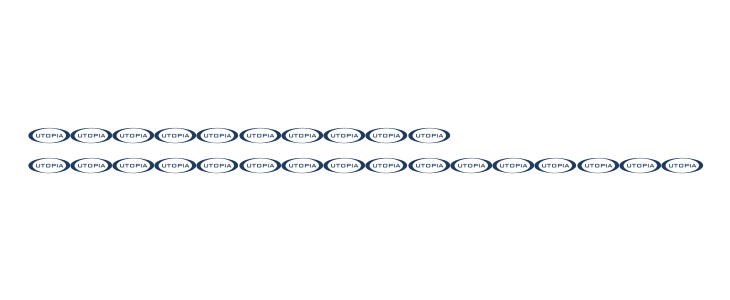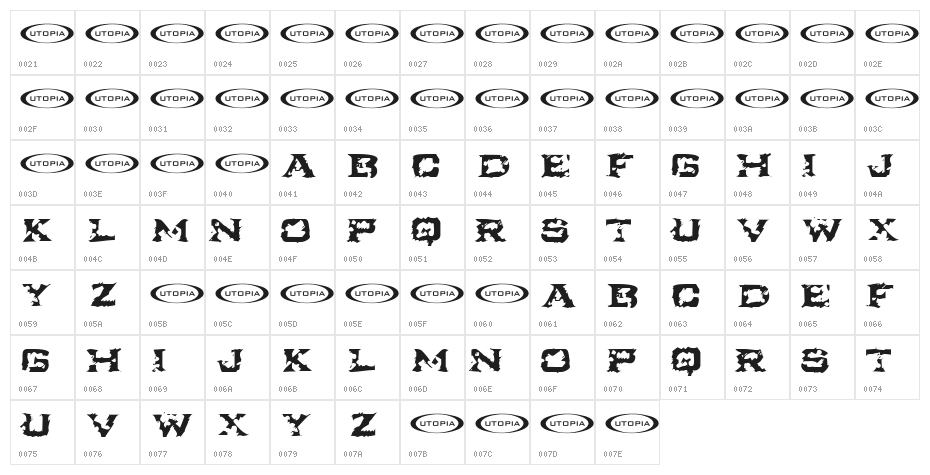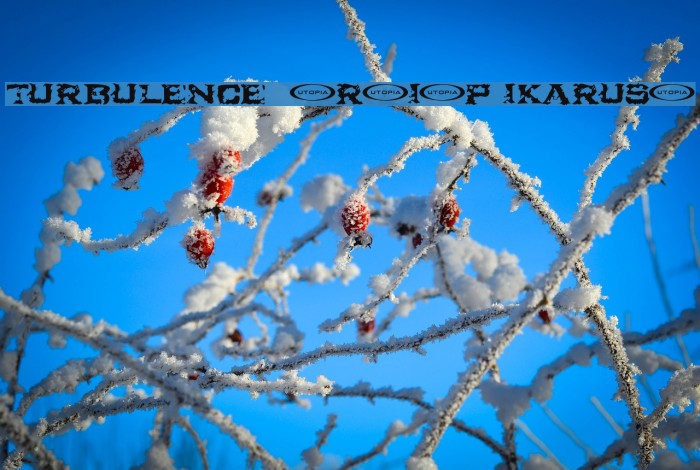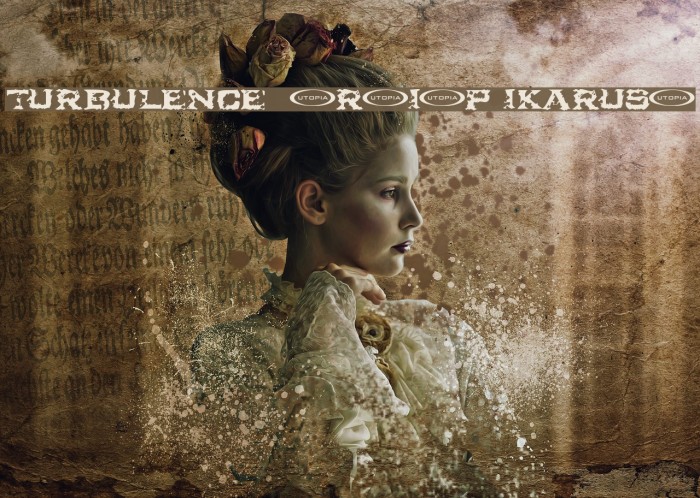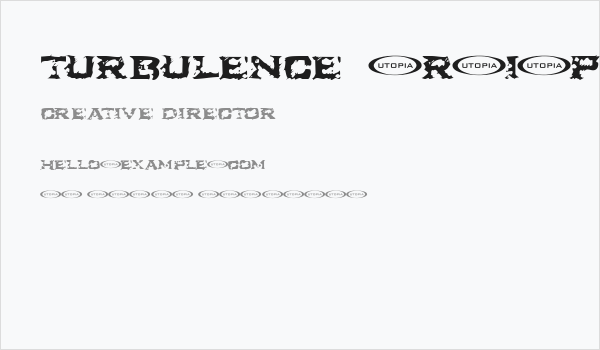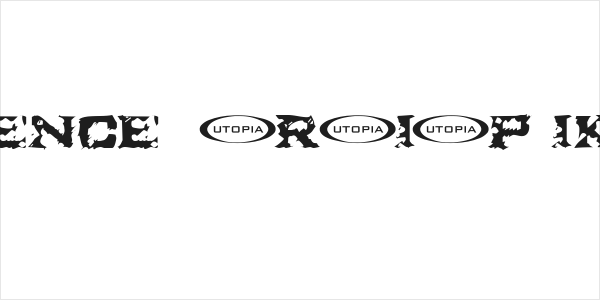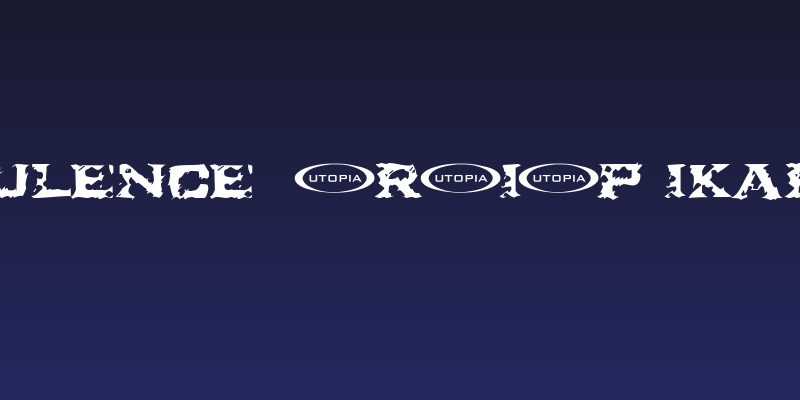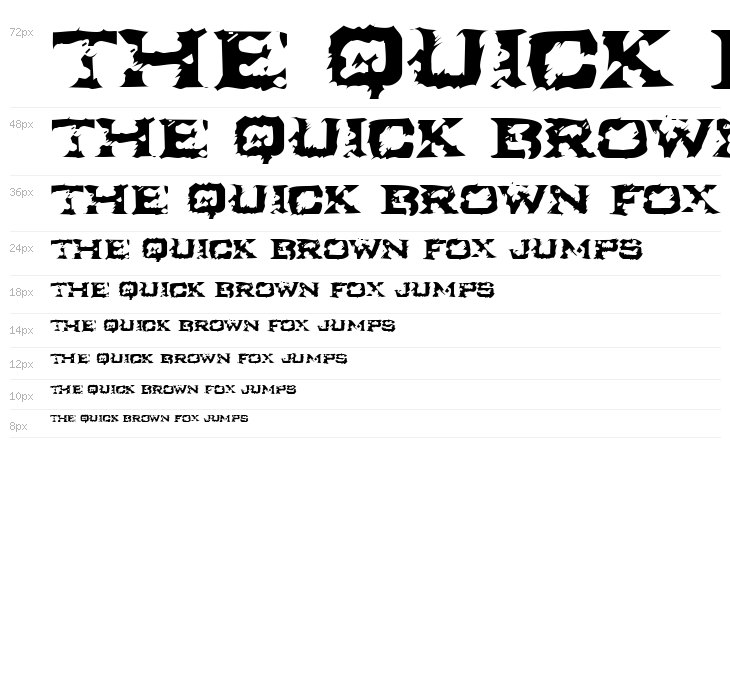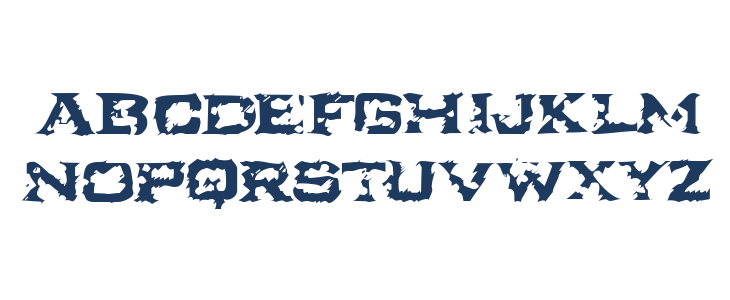
Turbulence [R.I.P Ikarus] Font
Turbulence [R.I.P Ikarus] Description
This font features a distressed, grunge style with jagged edges and irregular shapes, giving it a chaotic and turbulent appearance. The characters are bold and impactful, with a high level of detail that suggests a sense of decay or destruction. The uppercase letters are particularly striking, with each character appearing unique due to the varying degrees of distress. This font is ideal for projects that require a dramatic and edgy aesthetic, such as posters, album covers, or any design that aims to convey a sense of rebellion or unrest.